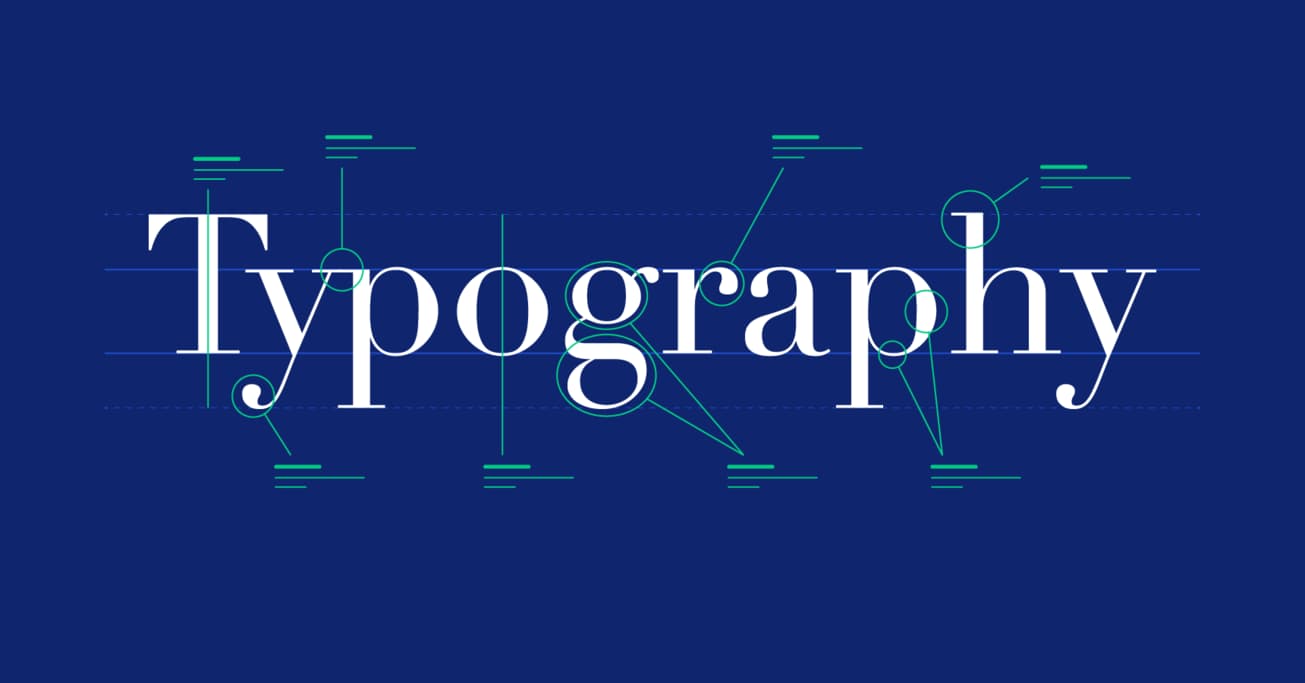
Virtually all designers, from brand designers to UI designers to dedicated typography designers, can benefit from expanding their knowledge of typography and the classification of typefaces. Possibly with the exception of color, the typeface styles used in a design have a greater impact on the way a user perceives that design than virtually any other individual design element.
Great typography can elevate a design from “good” to “amazing,” while bad typography (or worse — illegible type) can make even the “best” designs unusable. Taking time to learn about typographical elements can help any designer improve their craft and create superior finished projects.
Typography Basics
There are five basic classifications of typefaces: serif, sans serif, script, monospaced, and display.
As a general rule, serif and sans serif typefaces are used for either body copy or headlines (including titles, logos, etc.), while script and display typefaces are only used for headlines. Monospaced typefaces are generally used for displaying code, though they can also be used for body and headline copy, and were originally used on typewriters.
Not all serif and sans serif typefaces are equally suitable for both body and headline copy. Different typefaces are more legible than others at small sizes, while others are more suitable for larger type. (This kind of information can generally be found in the commercial descriptions of the various fonts.)
History of Typeface Styles
The oldest typefaces were called blackletter, and date back to the 1400s. These early typefaces were reminiscent of handwritten calligraphy.
After blackletter came the first serif typefaces. Serifs include slight projections that finish off the strokes of their letterforms (called serifs, where the style gets its name). Emerging in the 1500s, the first serifs were Old Style serifs. This style includes Garamond and Goudy Old Style.
The successors to the Old Style serifs were called Transitional serifs, which made their first appearance in the 1700s. These typefaces had high stroke contrast and were more upright than their Old Style predecessors.
The natural evolution of the trends present in Transitional serif typefaces became known as the Modern serifs during the 1800s. These Modern serifs include fonts like Didot and Bodoni. They have extreme contrast between strokes and no brackets on their serifs.
Slab serifs are the final evolution of the serif style. With the advent of mechanization (e.g the Steam Press, 1814), and other important innovations in printing technology, as well as a new wave in advertising with advertisers reaching for a bold type that really asserted its presence, they were designed in part to withstand much more industrial printing processes. They have little contrast between strokes and most are unbracketed. Slab serif typefaces include Rockwell and Clarendon, among others. They’re sometimes thought of as typewriter fonts but were used much more extensively throughout the 20th century.
While serifs were the first typefaces to evolve after the original blackletters, sans serif typefaces largely came on to the design scene in the early 20th century. These early sans serif typefaces were called grotesque or gothic fonts and included typefaces like Franklin Gothic. They were called “grotesque” due to their rejection of the more “elegant” serif design elements.
Later in the 1900s, after the Grotesques came to the Neo-Grotesque sans serif typefaces. These typefaces were designed to be more legible than their earlier counterparts and generally have much plainer designs. Helvetica and Arial are both examples of Neo-Grotesque sans serifs.
Rounding out the sans serif typefaces are the Geometric and Humanistic styles. Geometric sans serifs, like the Modern serifs, took the style to the edge. They have letterforms based on simple geometric shapes — most notably the circular ‘O’ shapes — and are very modern. Their ultra-modern shapes do sacrifice legibility at smaller sizes, however. Futura is the most notable Geometric sans serif.
Humanistic sans serifs sought to retain some of the influence that natural handwriting had on the letterforms of earlier typefaces. The letterforms are made more approachable through features like variable stroke widths. Gill Sans is one of the more popular sans serif typefaces.
Other typeface styles — script and display — are harder to classify along a timeline. Blackletter is technically a script typeface, while new scripts are being developed all the time. The same goes for display fonts: they’ve been around almost as long as movable type itself.
While the time periods in which they were designed can go a long way toward helping to identify different typefaces. Since different styles can evoke different feelings in a project (formal or casual, traditional or modern, etc.), knowing the specific characteristics that set these styles apart from one another is valuable knowledge for a designer. The typography infographic below includes information on how to tell each style apart.
Historically, a typeface included multiple fonts from the same family, while a font was a specific weight and size type within that family. In modern typography terminology, the terms font and typeface are often used interchangeably.
Typography is the art and practice of creating and arranging type. It includes creating typefaces as well as implementing those typefaces within a design. Typography is important because it helps readers absorb and interpret text-based information.